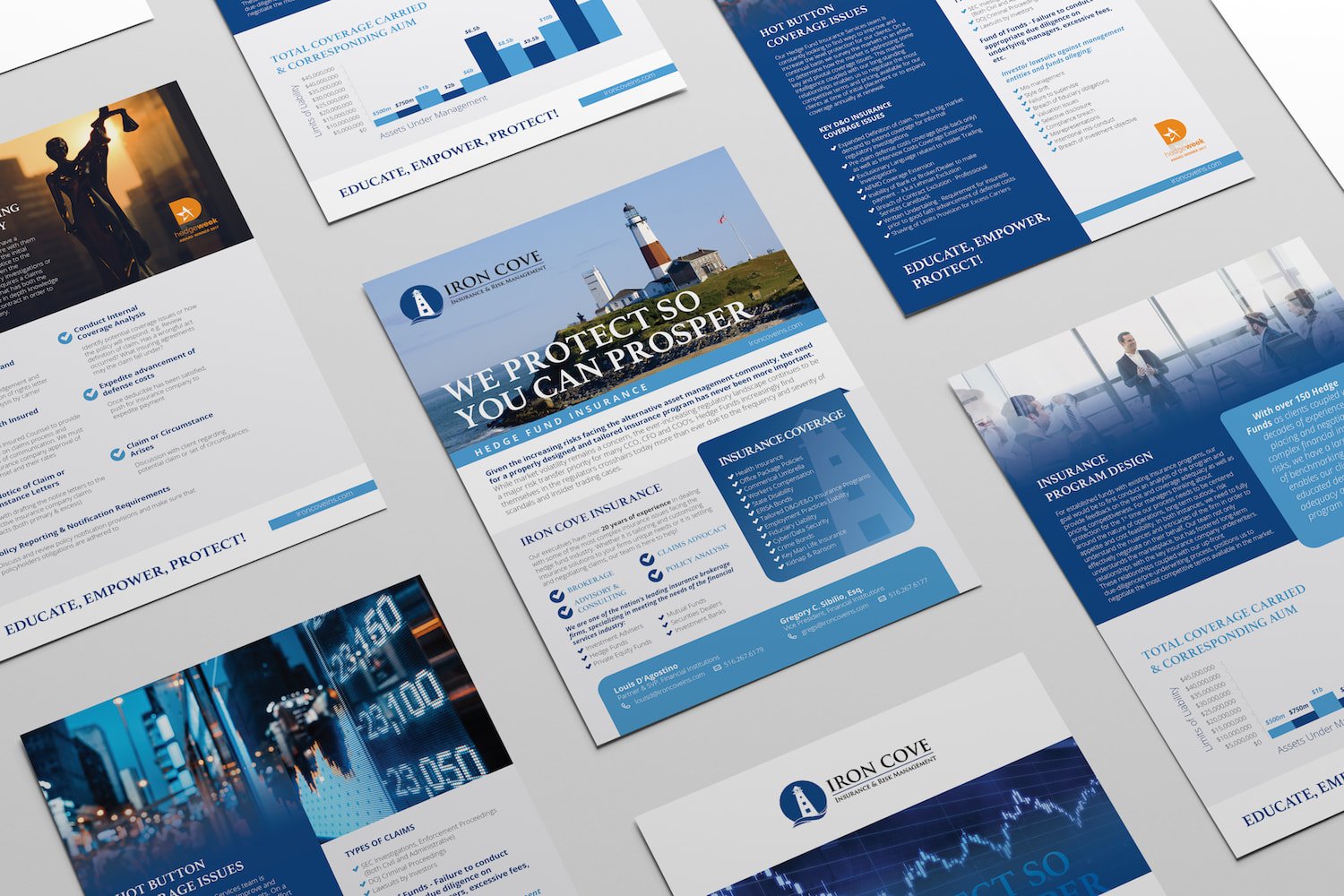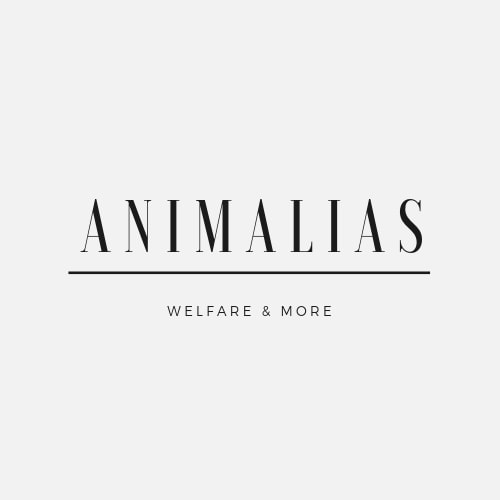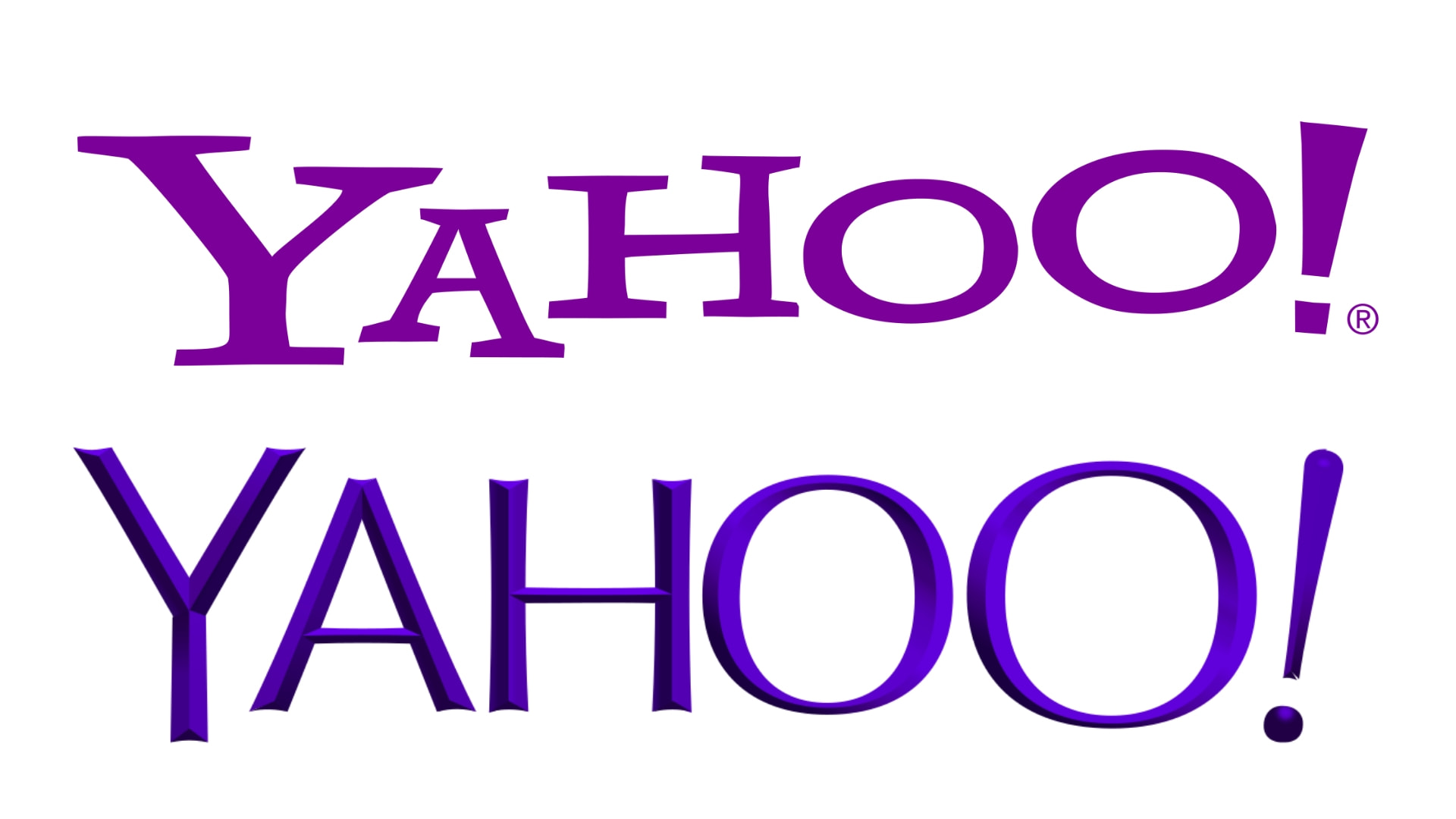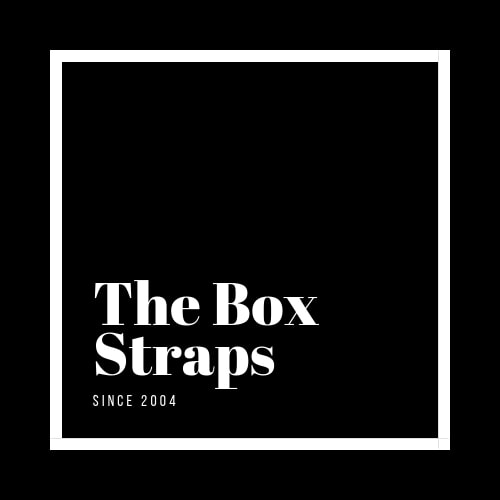
120 Finest Serif Fonts To Add To Your Collection Creativetacos. We are introducing another slab serif typeface the marlboro font. These serif fonts are typically used in newspapers, because they make reading quick and easy. They use a serif font to show people that they are experienced and knowledgeable when it comes to helping them with their litigation needs. Laviossa elegant serif font is a stylish font that is classic, elegant and unique font that uses ligatures to smoothly link letters. 1 2 3 4 5 6 7 8 9 10. It is less likely to read a l as a i or vice versa. There is one reason to use serif and not sans serif: Serif fonts are used for body text because they are very easy to read. Serif fonts can have a more clinical and institutional look to them, says todd, who uses serif fonts to evoke earlier eras. Browse by alphabetical listing, by style, by author or by popularity. Archive of freely downloadable fonts. In the early days of apple, the tech giant primarily used a serif font in its branding before eventually switching to a more modern looking sans serif font. Imsi masterfonts is a font creating organization took the charge for designing it for the. When working on book design for find out how to use font combos with designs that make the most of different fonts and font families with this article from adobe create magazine. Serif typefaces have small projections at the ends of the letter strokes.
1 2 3 4 5 6 7 8 9 10. Today, these sans serif fonts are used in blogs and online articles in newspapers with large bodies of text, because their legibility on screen is really. Google fonts make it easier for everybody to utilize web text fonts, including professional developers and designers. Serif typefaces have small projections at the ends of the letter strokes. Arial is one of the safest web fonts, and it is available on all major operating systems. They started being widely used during the 1920s bauhaus movement. Sans serif fonts, then, are the ones that don't have these ornamental lines in them. Serif fonts are very easy to read because of the large block of text. There is one reason to use serif and not sans serif: It is less likely to read a l as a i or vice versa. To change the font via html, you can use the style attribute within the <p> tag that defines a paragraph. What kind of message does each send? Serif fonts have small lines that carry outside of the natural lines of a letter, where as sans serif are like block lettering, without the extra decoration. Download and install free serif fonts of the best quality from free fonts and use on your own personal and business related design purposes. When working on book design for find out how to use font combos with designs that make the most of different fonts and font families with this article from adobe create magazine. Most browsers will allow users to configure these settings, and (usually) default to default fonts in linux distributions vary. Serif fonts have little lines sticking out of the ends of letters, like the times family of fonts. These serif fonts are typically used in newspapers, because they make reading quick and easy. Because of the sharp angles, serif fonts are better suits for all kinds of. You can use these fonts to create custom styles. Archive of freely downloadable fonts. The most common one you may know of is the times new sans serif fonts, on the other hand, are clean font types without any major decoration, like the arial font. Most books, newspapers, and magazines use serif fonts for their legibility. It's not specific to word. Serif fonts are used for body text because they are very easy to read. If a buggy browser attempts to use a font that doesn't exist on the machine, most operating systems will. In the early days of apple, the tech giant primarily used a serif font in its branding before eventually switching to a more modern looking sans serif font. Learn how to use tools such as adobe photoshop, powerpoint, adobe xd, illustrator, and sketch. Serif fonts can have a more clinical and institutional look to them, says todd, who uses serif fonts to evoke earlier eras. Arial is also the default font in google docs. Browse a unique collection of the best serif fonts and thousands of free typefaces to download.
10 Best Serif Fonts For Clean Elegant Logo Design Just Creative. Archive of freely downloadable fonts. It is less likely to read a l as a i or vice versa. 1 2 3 4 5 6 7 8 9 10. These serif fonts are typically used in newspapers, because they make reading quick and easy. We are introducing another slab serif typeface the marlboro font. In the early days of apple, the tech giant primarily used a serif font in its branding before eventually switching to a more modern looking sans serif font. They use a serif font to show people that they are experienced and knowledgeable when it comes to helping them with their litigation needs. There is one reason to use serif and not sans serif: Browse by alphabetical listing, by style, by author or by popularity. Serif fonts are used for body text because they are very easy to read. When working on book design for find out how to use font combos with designs that make the most of different fonts and font families with this article from adobe create magazine. Imsi masterfonts is a font creating organization took the charge for designing it for the. Serif typefaces have small projections at the ends of the letter strokes. Laviossa elegant serif font is a stylish font that is classic, elegant and unique font that uses ligatures to smoothly link letters. Serif fonts can have a more clinical and institutional look to them, says todd, who uses serif fonts to evoke earlier eras.
Timeless Typefaces The Classic Fonts Every Designer Should Own Indesign Skills. 1 2 3 4 5 6 7 8 9 10. Serif fonts can have a more clinical and institutional look to them, says todd, who uses serif fonts to evoke earlier eras. There is one reason to use serif and not sans serif: In the early days of apple, the tech giant primarily used a serif font in its branding before eventually switching to a more modern looking sans serif font. Imsi masterfonts is a font creating organization took the charge for designing it for the. When working on book design for find out how to use font combos with designs that make the most of different fonts and font families with this article from adobe create magazine. It is less likely to read a l as a i or vice versa. Serif typefaces have small projections at the ends of the letter strokes. These serif fonts are typically used in newspapers, because they make reading quick and easy. We are introducing another slab serif typeface the marlboro font. Laviossa elegant serif font is a stylish font that is classic, elegant and unique font that uses ligatures to smoothly link letters. They use a serif font to show people that they are experienced and knowledgeable when it comes to helping them with their litigation needs. Archive of freely downloadable fonts. Browse by alphabetical listing, by style, by author or by popularity. Serif fonts are used for body text because they are very easy to read.
These fonts increase the vision and goddess of design, so they prefer to use this font.
Serif Vs Sans Serif Fonts. In the early days of apple, the tech giant primarily used a serif font in its branding before eventually switching to a more modern looking sans serif font. When working on book design for find out how to use font combos with designs that make the most of different fonts and font families with this article from adobe create magazine. We are introducing another slab serif typeface the marlboro font. Serif fonts are used for body text because they are very easy to read. Serif fonts can have a more clinical and institutional look to them, says todd, who uses serif fonts to evoke earlier eras. Archive of freely downloadable fonts. They use a serif font to show people that they are experienced and knowledgeable when it comes to helping them with their litigation needs. There is one reason to use serif and not sans serif: It is less likely to read a l as a i or vice versa. Serif typefaces have small projections at the ends of the letter strokes. These serif fonts are typically used in newspapers, because they make reading quick and easy. Imsi masterfonts is a font creating organization took the charge for designing it for the. Browse by alphabetical listing, by style, by author or by popularity. 1 2 3 4 5 6 7 8 9 10. Laviossa elegant serif font is a stylish font that is classic, elegant and unique font that uses ligatures to smoothly link letters.
Today, these sans serif fonts are used in blogs and online articles in newspapers with large bodies of text, because their legibility on screen is really.
Inria Serif Font Free By Black Foundry Font Squirrel. It is less likely to read a l as a i or vice versa. There is one reason to use serif and not sans serif: We are introducing another slab serif typeface the marlboro font. When working on book design for find out how to use font combos with designs that make the most of different fonts and font families with this article from adobe create magazine. Imsi masterfonts is a font creating organization took the charge for designing it for the. Serif typefaces have small projections at the ends of the letter strokes. Serif fonts are used for body text because they are very easy to read. Serif fonts can have a more clinical and institutional look to them, says todd, who uses serif fonts to evoke earlier eras. Archive of freely downloadable fonts. In the early days of apple, the tech giant primarily used a serif font in its branding before eventually switching to a more modern looking sans serif font. 1 2 3 4 5 6 7 8 9 10. Browse by alphabetical listing, by style, by author or by popularity. Laviossa elegant serif font is a stylish font that is classic, elegant and unique font that uses ligatures to smoothly link letters. These serif fonts are typically used in newspapers, because they make reading quick and easy. They use a serif font to show people that they are experienced and knowledgeable when it comes to helping them with their litigation needs.
120 Finest Serif Fonts To Add To Your Collection Creativetacos. These serif fonts are typically used in newspapers, because they make reading quick and easy. Archive of freely downloadable fonts. In the early days of apple, the tech giant primarily used a serif font in its branding before eventually switching to a more modern looking sans serif font. Serif typefaces have small projections at the ends of the letter strokes. When working on book design for find out how to use font combos with designs that make the most of different fonts and font families with this article from adobe create magazine. They use a serif font to show people that they are experienced and knowledgeable when it comes to helping them with their litigation needs. It is less likely to read a l as a i or vice versa. Browse by alphabetical listing, by style, by author or by popularity. Serif fonts are used for body text because they are very easy to read. There is one reason to use serif and not sans serif: We are introducing another slab serif typeface the marlboro font. Serif fonts can have a more clinical and institutional look to them, says todd, who uses serif fonts to evoke earlier eras. Laviossa elegant serif font is a stylish font that is classic, elegant and unique font that uses ligatures to smoothly link letters. Imsi masterfonts is a font creating organization took the charge for designing it for the. 1 2 3 4 5 6 7 8 9 10.
Arial is one of the safest web fonts, and it is available on all major operating systems.
For example, the alternatives for the sans serif font like helvetica are acumin and univers. These serif fonts are typically used in newspapers, because they make reading quick and easy. See more ideas about serif, free font, serif fonts. Download free serif fonts for commercial and personal use. Because of the sharp angles, serif fonts are better suits for all kinds of. Serif fonts have little lines sticking out of the ends of letters, like the times family of fonts. Arial is the most widely used font for both online and printed media. Demo donationware free free for personal use public domain, gpl, ofl shareware. Based on font usage data on typewolf, as well as site submissions designers have been sending me lately, these are the 10 fonts that i predict will be. What kind of message does each send?